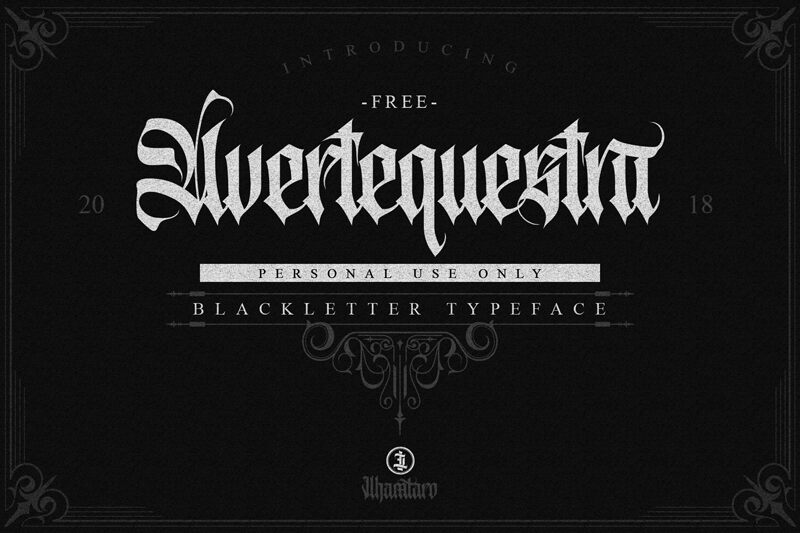
Avertequestra is a typeface with Blackletter style taste, includes full set of gorgeous uppercase and lowercase letters, numerals, punctuation, ligatures, discretionary ligatures, alternate characters and extra ornaments, giving realistic calligraphy blackletter style.
Avertequestra is very suitable as to make a design choice for Tattoo Logo, Barbershop Logo, Music Events, Badges, Clothing and many more.
Inspired by blackletter calligraphy.